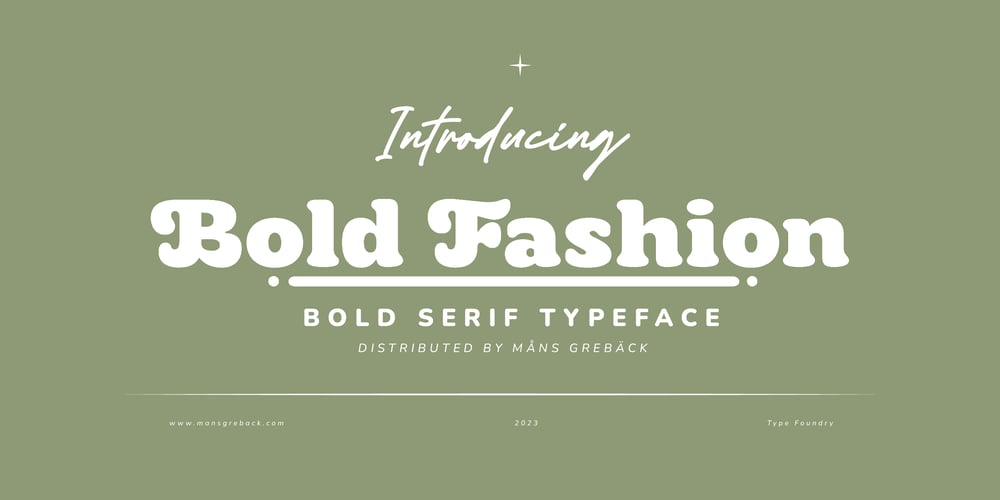
Bold Fashion Font Family was designed by Måns Grebäck and published by Mans Greback. Bold Fashion contains 16 styles and family package options. Bold Fashion is a heavy slab-serif font of the disco era. Its funk-style design, coupled with soft, rounded serifs, embodies the soul of retro, bringing forth memories of neon lights, bell-bottoms, and roller discos. Each letter is profoundly heavy, yet they prance with a bouncy, comfy rhythm, akin to catchy 70s beats. The swashes adorning the uppercase letters add flair, reminiscent of iconic burger joint signs and groovy vinyl covers.